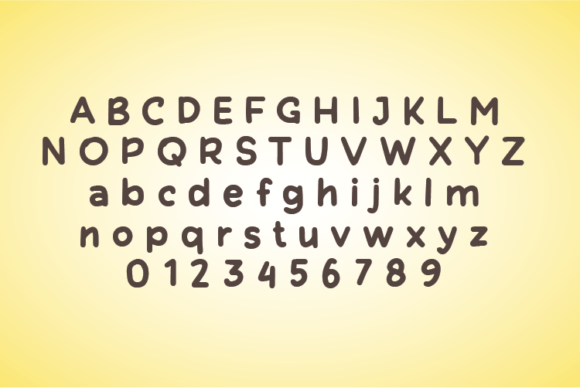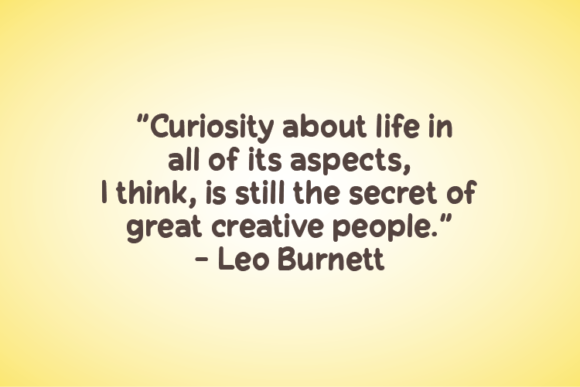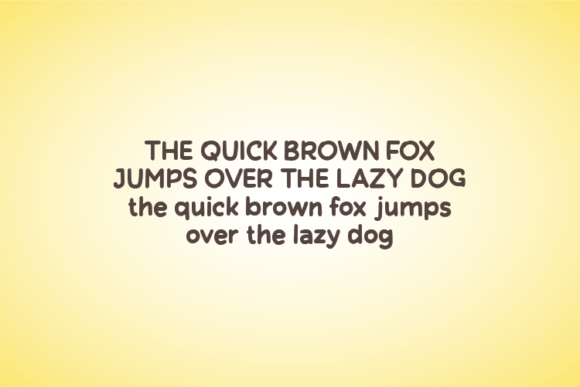
The Sweet Spot: Discovering the Charm of Candy House Font
I’ll never forget the time I was working on a design project for a client who wanted a playful, handwriting-style font to match their brand’s friendly vibe. I spent hours scouring font libraries, but nothing seemed quite right – until I stumbled upon Candy House. This beautiful, natural handwritten font won me over with its unique character and versatility. In this article, I’ll share my experience with Candy House, explore its features, and provide a guide on how to make the most of it in your designs.
A First Impression: What Makes Candy House Special
Candy House is a natural handwritten font that stands out for its distinctive, uneven character indentations. This quirky feature gives it a personal, human touch that’s perfect for designs that need a bit of whimsy. The font is also highly legible, making it suitable for a wide range of applications, from quotes and notes to tees and product design.
Here’s what I love about Candy House:
- ✨ Unique, hand-crafted feel that adds personality to any design
- 🌈 Versatile and suitable for a wide range of creative projects
As for quirks, I noticed a few things to keep in mind:
- ⚠️ Some characters may appear a bit narrow or wide, which can affect spacing
- 🤔 Limited availability of stylistic alternates, which may limit design options
The Story Behind Candy House: Designer Inspiration
Candy House was designed with the goal of creating a unique, handwritten font that captures the imperfections and charm of natural handwriting. The designer aimed to create a font that feels personal and approachable, making it perfect for creative projects that need a touch of whimsy.
Q: What makes Candy House font unique?
A: Candy House features natural, uneven character indentations that give it a distinctive, hand-crafted feel.
Q: Is Candy House suitable for body text?
A: While Candy House is legible, it’s best suited for headlines, quotes, and short paragraphs due to its unique character spacing.
Q: Does Candy House support OpenType features?
A: Yes, Candy House supports OpenType features, including glyphs and stylistic alternates, which can be accessed in compatible design software.